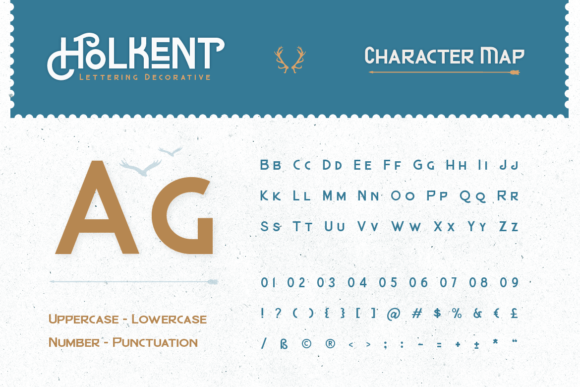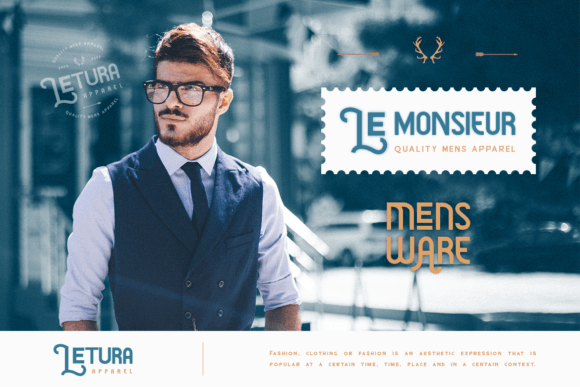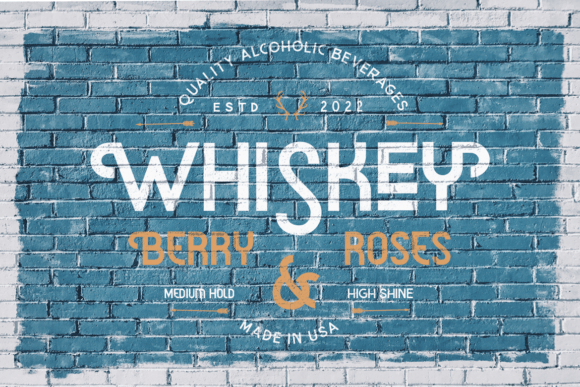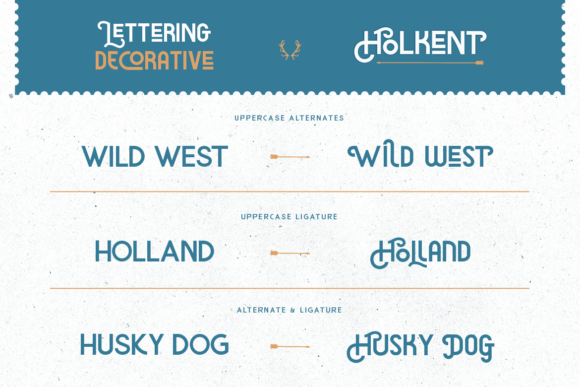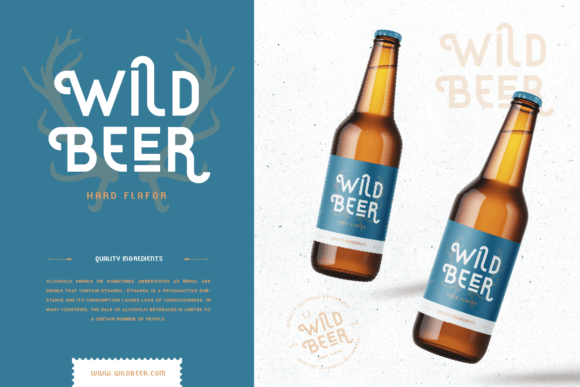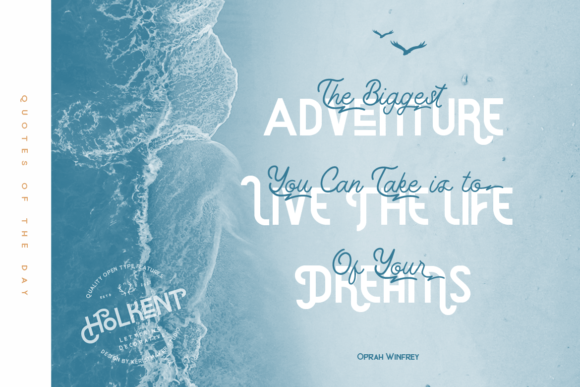
Introduction to Holkent Font
You know that moment when you’re brainstorming a creative project and the perfect design element just pops into your mind? For designers, finding the right font can be the game-changer that elevates an idea from ordinary to extraordinary. That’s exactly what the Holkent Font does – it brings a touch of modern sophistication to any design project.
As a versatile and high-quality sans serif font, Holkent Font is an absolute gem for designers. Whether you’re working on a wedding invitation, social media post, or beautiful stationary art, this font is sure to make your design stand out. With its clean lines and modern aesthetic, Holkent Font is the perfect design resource for anyone looking to add a touch of elegance to their creative project.
Key Features of Holkent Font
- High-quality design resource for creative projects, offering a unique and stylish aesthetic.
- Designed to be versatile, the Holkent Font is suitable for a wide range of applications, from logos to typography.
- Unique characteristics include its modern and sleek design, making it perfect for contemporary creative projects.
Honest Review: Holkent Font
I recently came across the Holkent Font, a free download that caught my attention. As a designer, I appreciate high-quality design resources that can elevate my creative project. The Holkent Font does just that.
What works well: ✨ The font has a unique, elegant design that adds a touch of sophistication to any project. The transparent background makes it easy to use in various contexts. The font’s versatility and range of styles make it suitable for a wide range of creative projects.
- Unique and elegant design
- Versatile and suitable for various creative projects
However, I noticed a few limitations: ⚠️ The font’s legibility could be improved, especially at smaller font sizes. Additionally, the font family is limited, which may not be suitable for projects that require a wide range of font styles.
Overall, I’m impressed with the Holkent Font. While it has its limitations, its unique design and high quality make it a valuable addition to any designer’s toolkit. With a bit of tweaking and experimentation, the Holkent Font can be a great asset for any creative project.
For the most out of Holkent Font, use it in creative projects that require a unique and stylish design. Some common use cases include logos, business cards, and social media graphics. You can also use Holkent Font for free download and incorporate it into your designs. Additionally, use it with a transparent background to create a modern and sleek look.